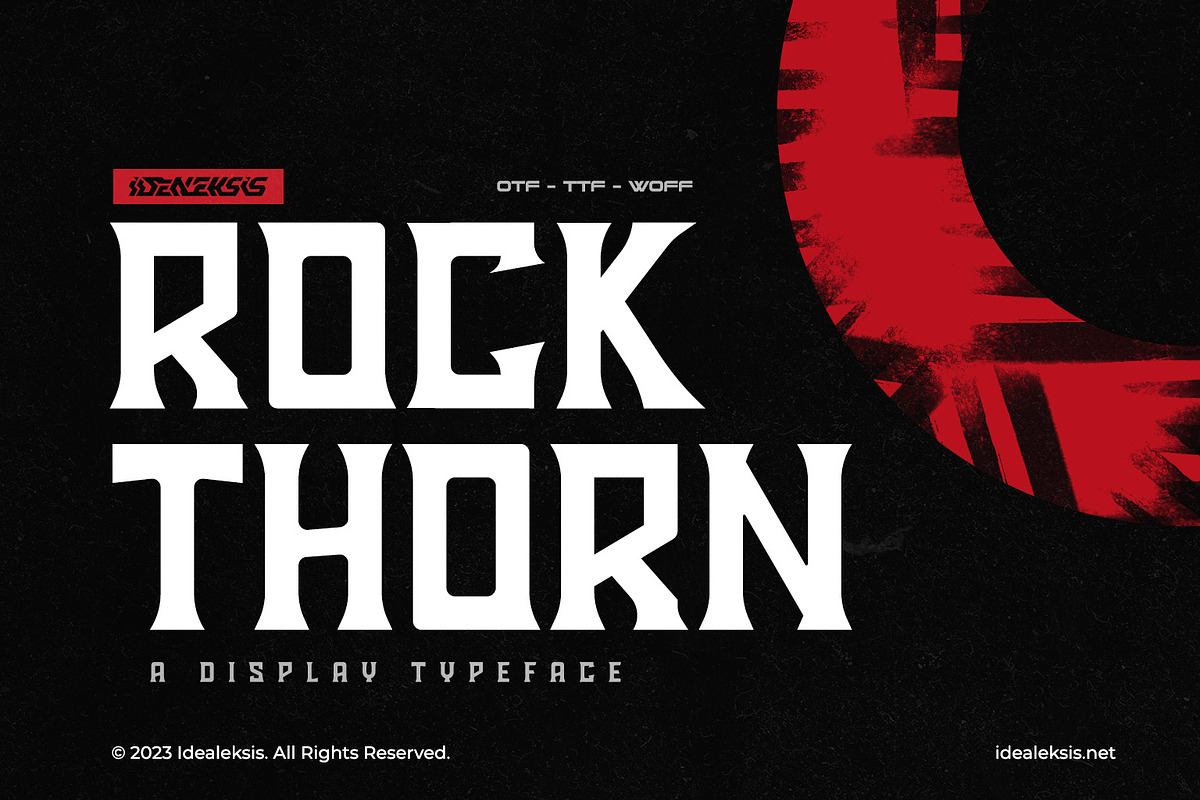
Bring boldness and energy to your designs with Rock Thorn Typeface Free Download — a powerful and edgy font perfect for projects that demand attention. With its strong lines, sharp angles, and rebellious spirit, this typeface is perfect for music branding, sports logos, event posters, and anything that needs a modern, dynamic touch.
Rock Thorn combines the raw energy of urban street style with a polished finish that works in both digital and print design. It includes uppercase and lowercase letters, punctuation, numerals, and multilingual support — offering versatility for a wide range of creative applications.